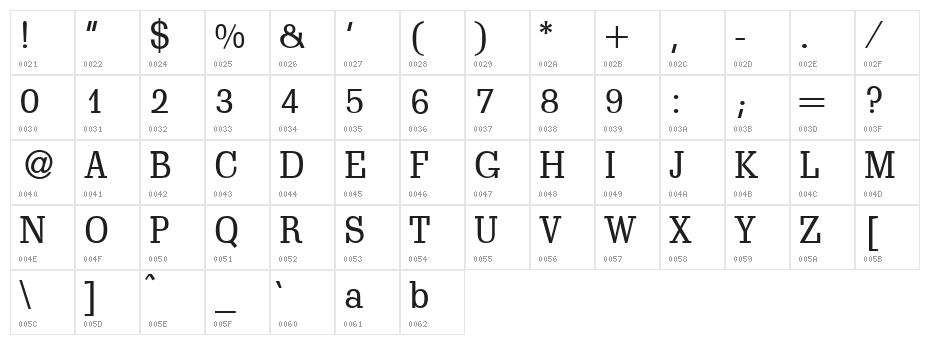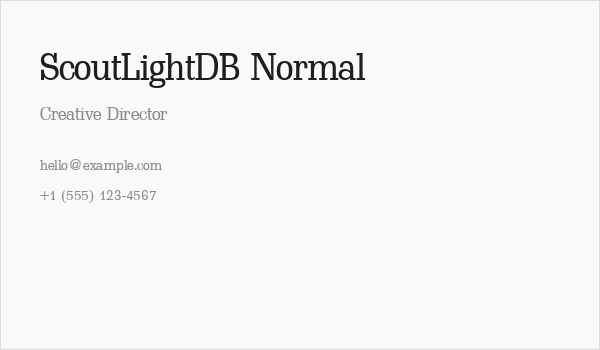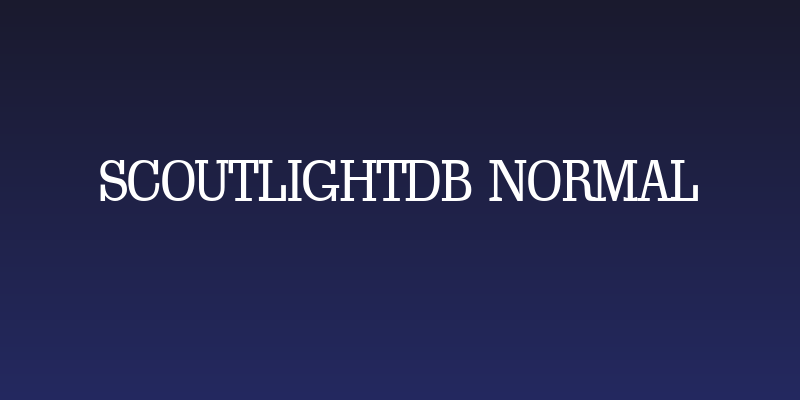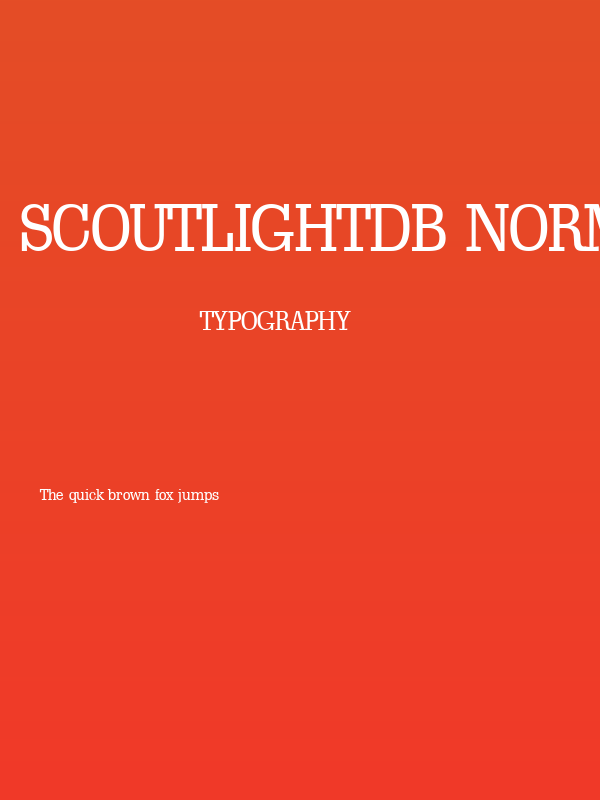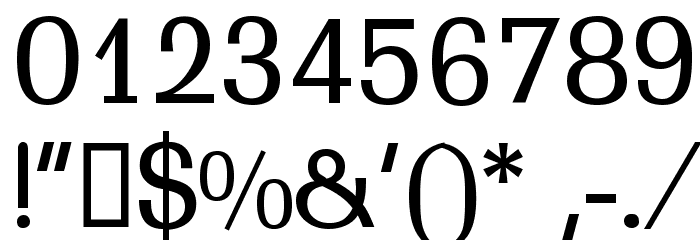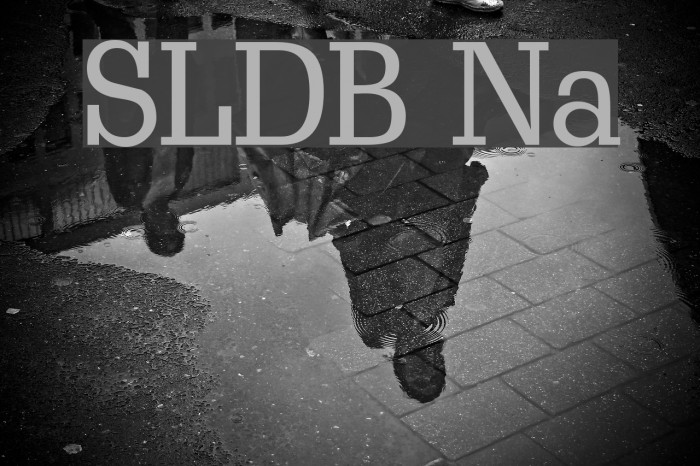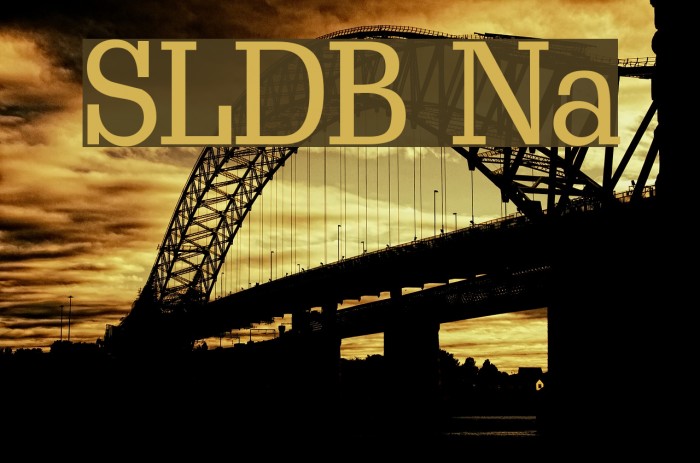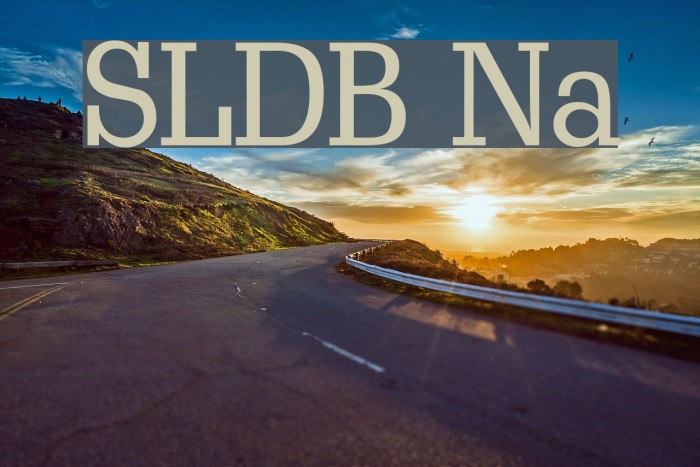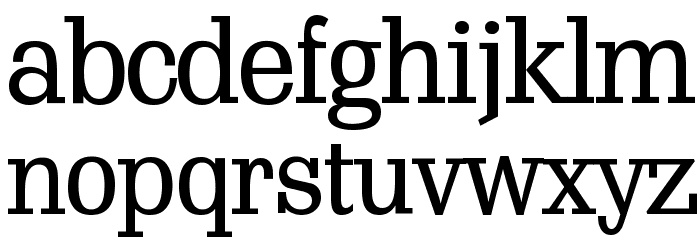
ScoutLightDB Normal Font
ScoutLightDB Normal Description
This font exhibits a classic serif style with a modern twist. The characters are well-defined with a moderate stroke contrast, making it both readable and elegant. The uppercase letters are bold and commanding, while the lowercase letters maintain a consistent and harmonious flow. The numerals are clear and distinct, ensuring easy readability. Special characters are crafted with precision, adding to the font's versatility. The overall design is balanced, making it suitable for a variety of applications.
| Proposed Projects | Ideal for editorial design, book covers, formal invitations, and branding projects. |